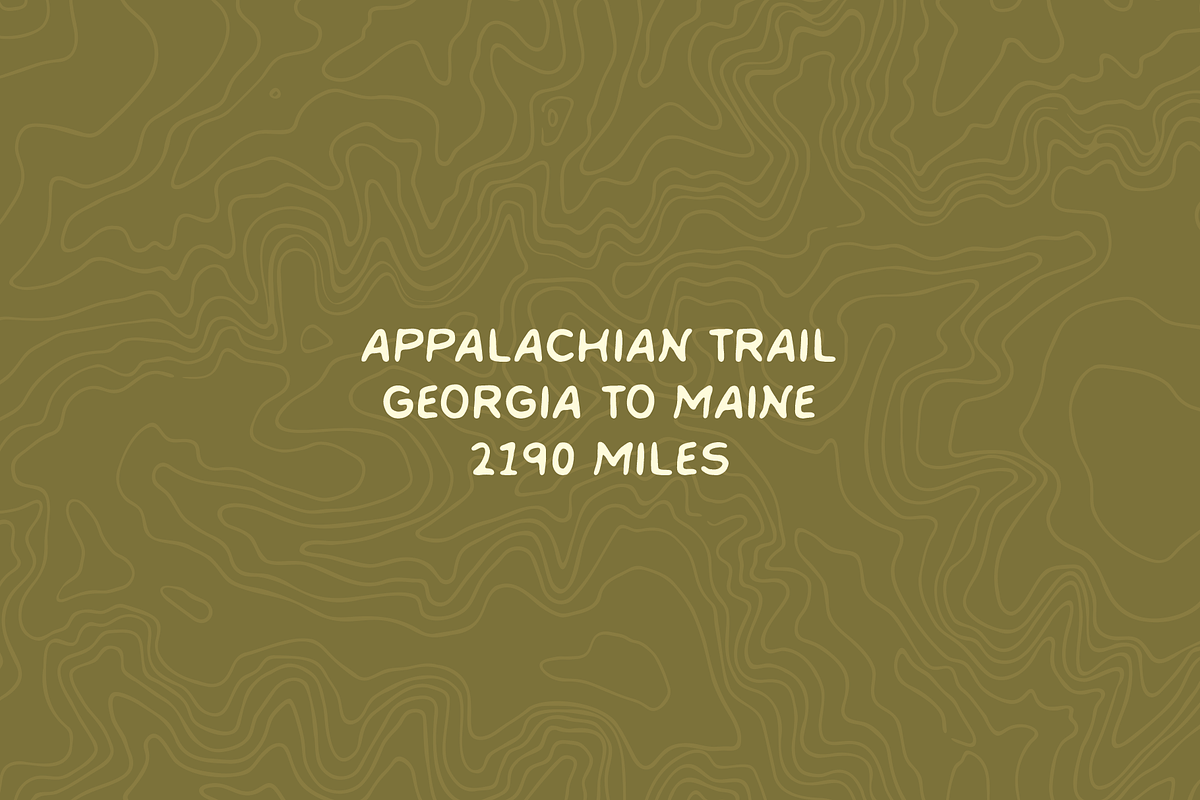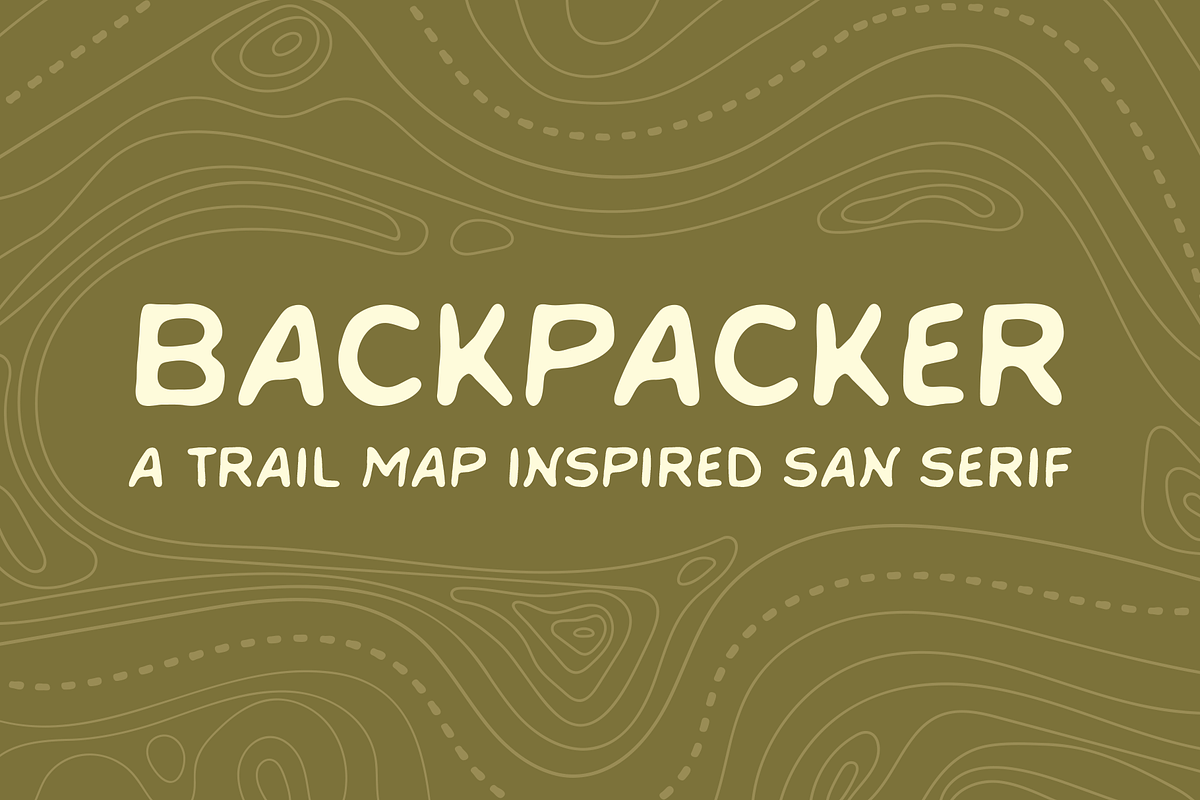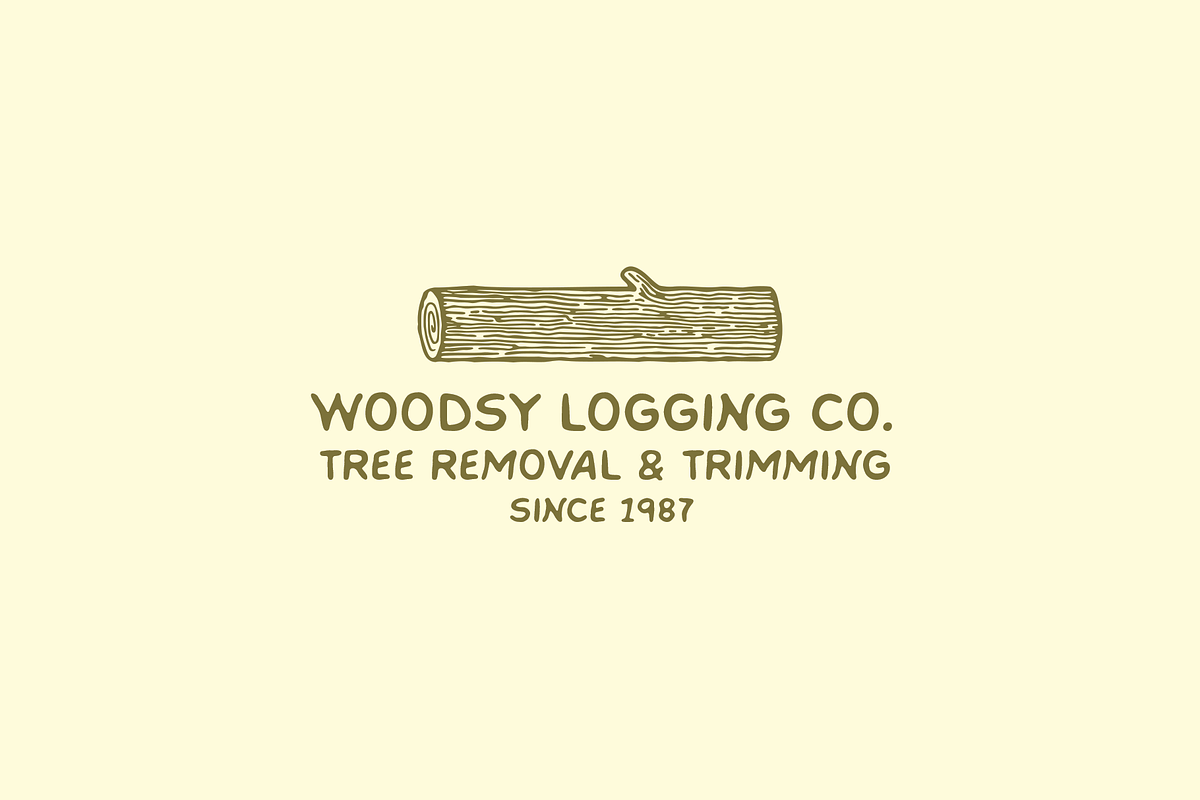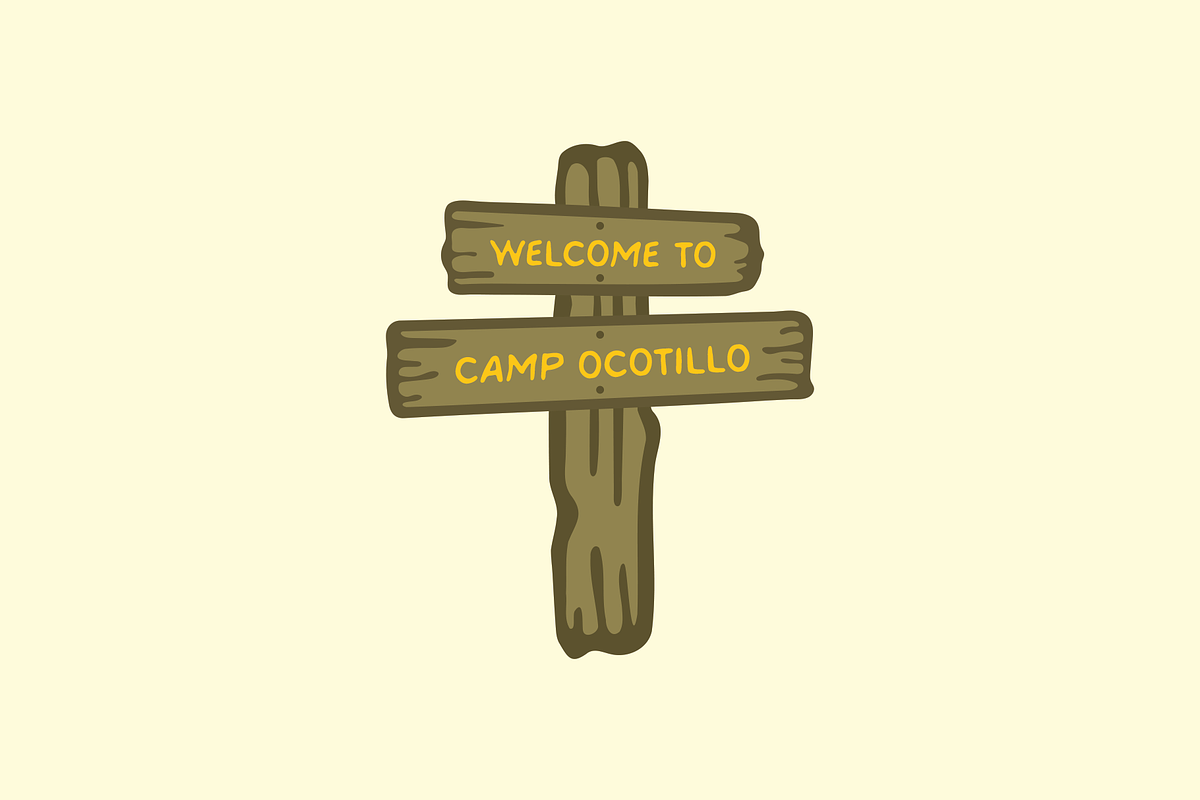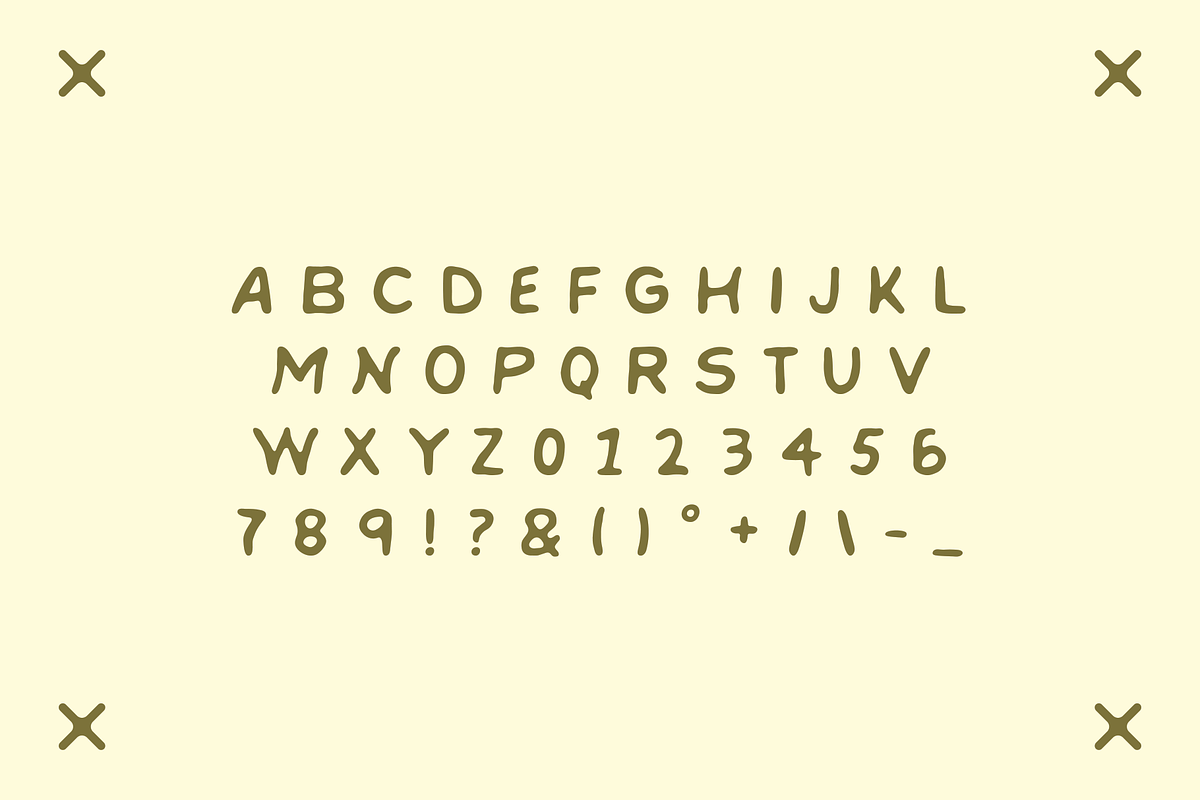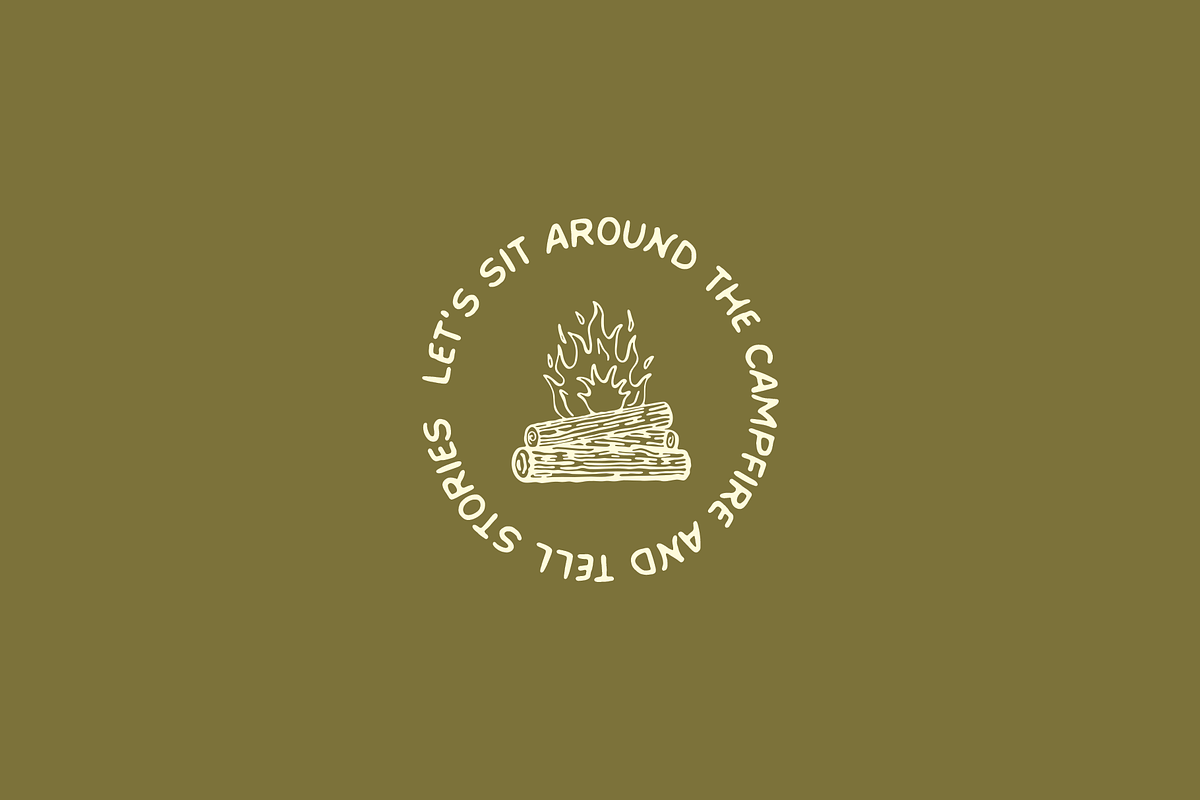
BACKPACKER by Ocotillo Design Studio
Backpacker is a typeface inspired by old trail maps and park signs. This typeface is hand made and adds a hand-lettered look to designs.